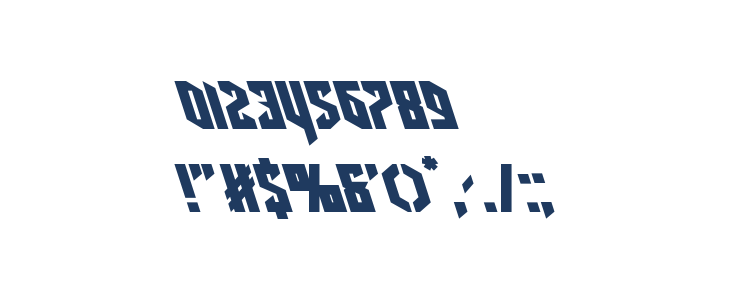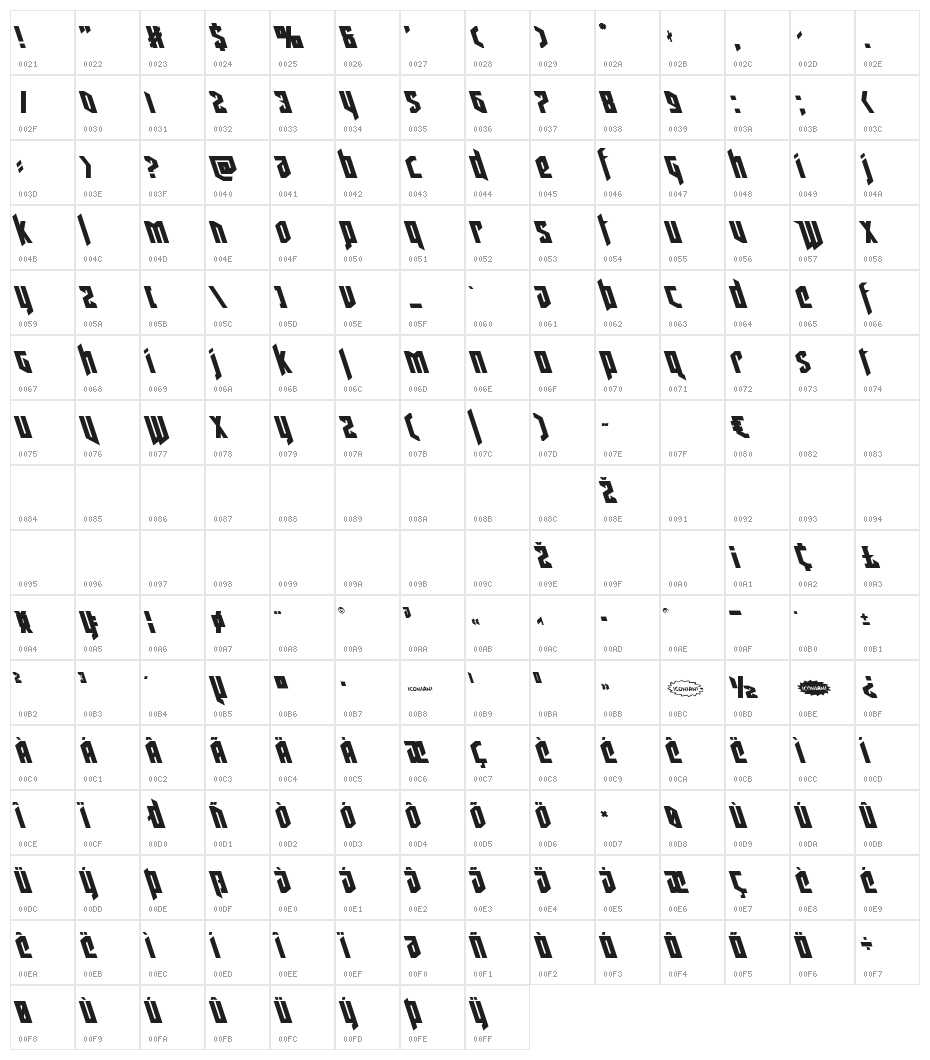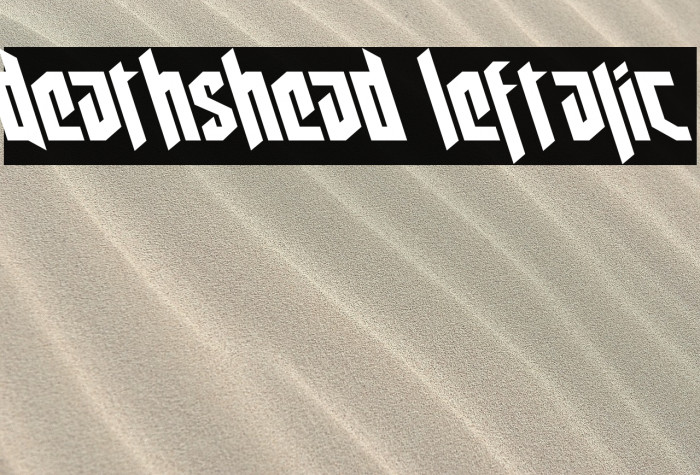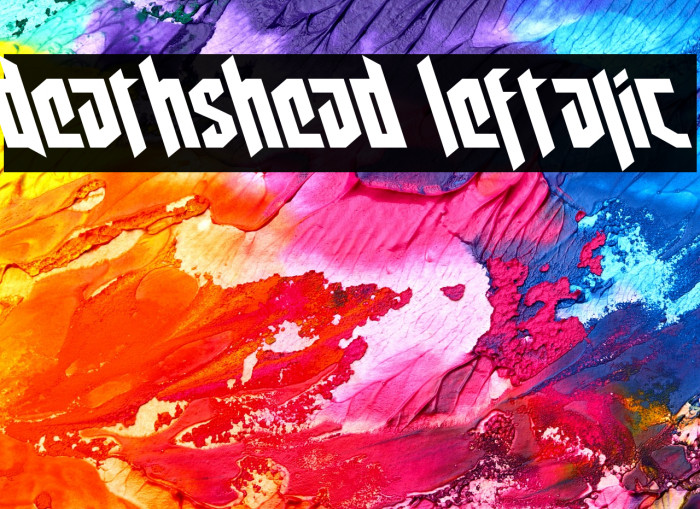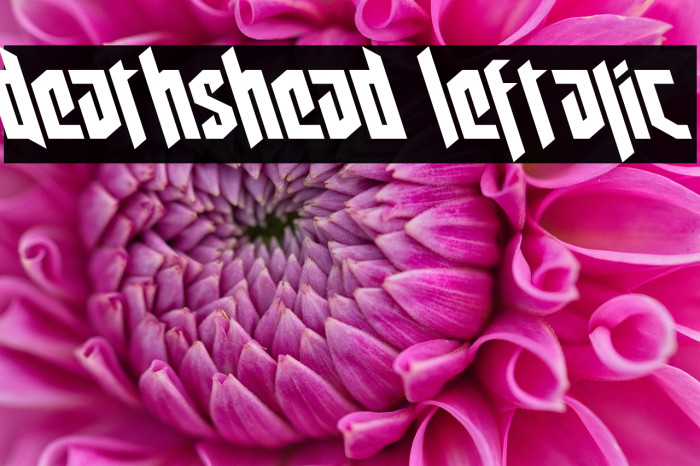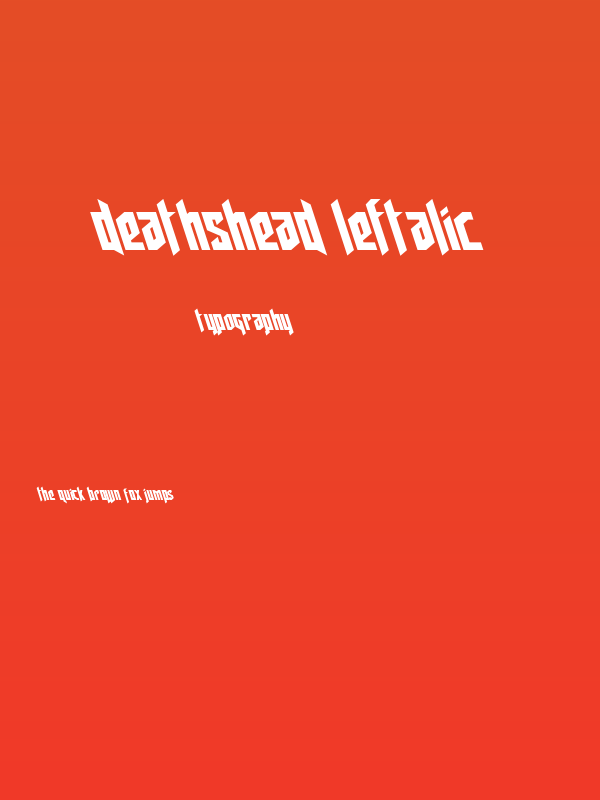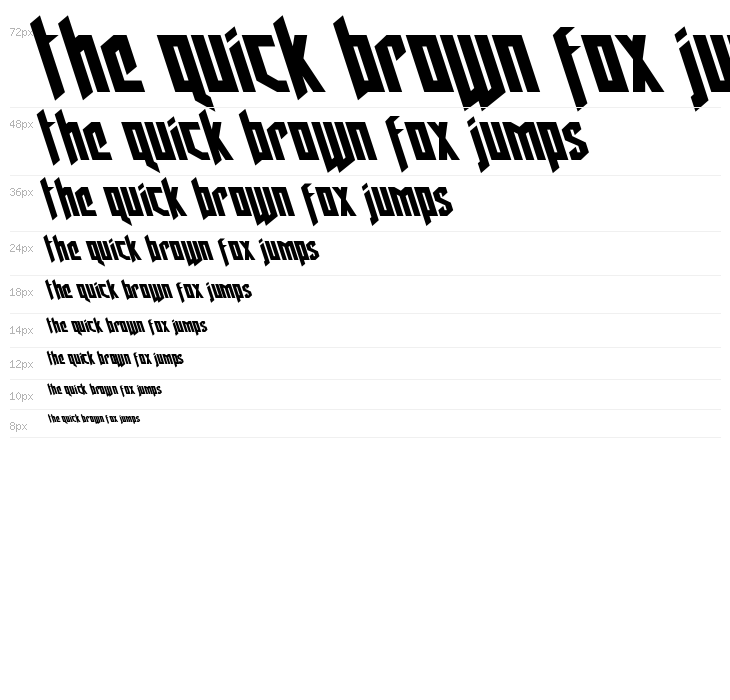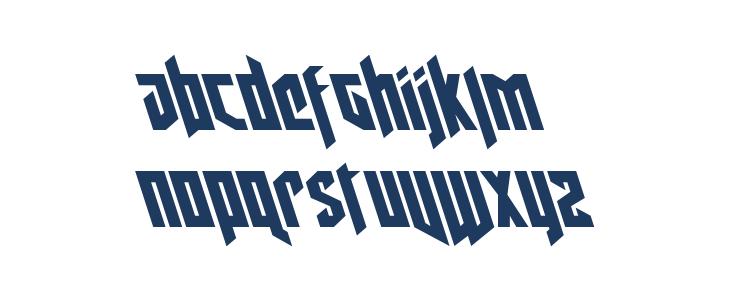
Deathshead Leftalic Font
Deathshead Leftalic Description
This font features a bold, angular design with a distinct leftward slant, giving it a dynamic and aggressive appearance. The characters are heavily stylized with sharp edges and a geometric structure, creating a sense of movement and intensity. The uppercase and lowercase letters share a consistent style, maintaining the boldness and angularity throughout. Numbers and special characters are equally bold and angular, fitting seamlessly with the overall aesthetic. This font's unique style makes it stand out, ideal for projects that require a strong visual impact.
| Overall Style | Modern, Edgy |
| Proposed Projects | Ideal for posters, album covers, video game graphics, and branding that requires a bold, edgy look. |